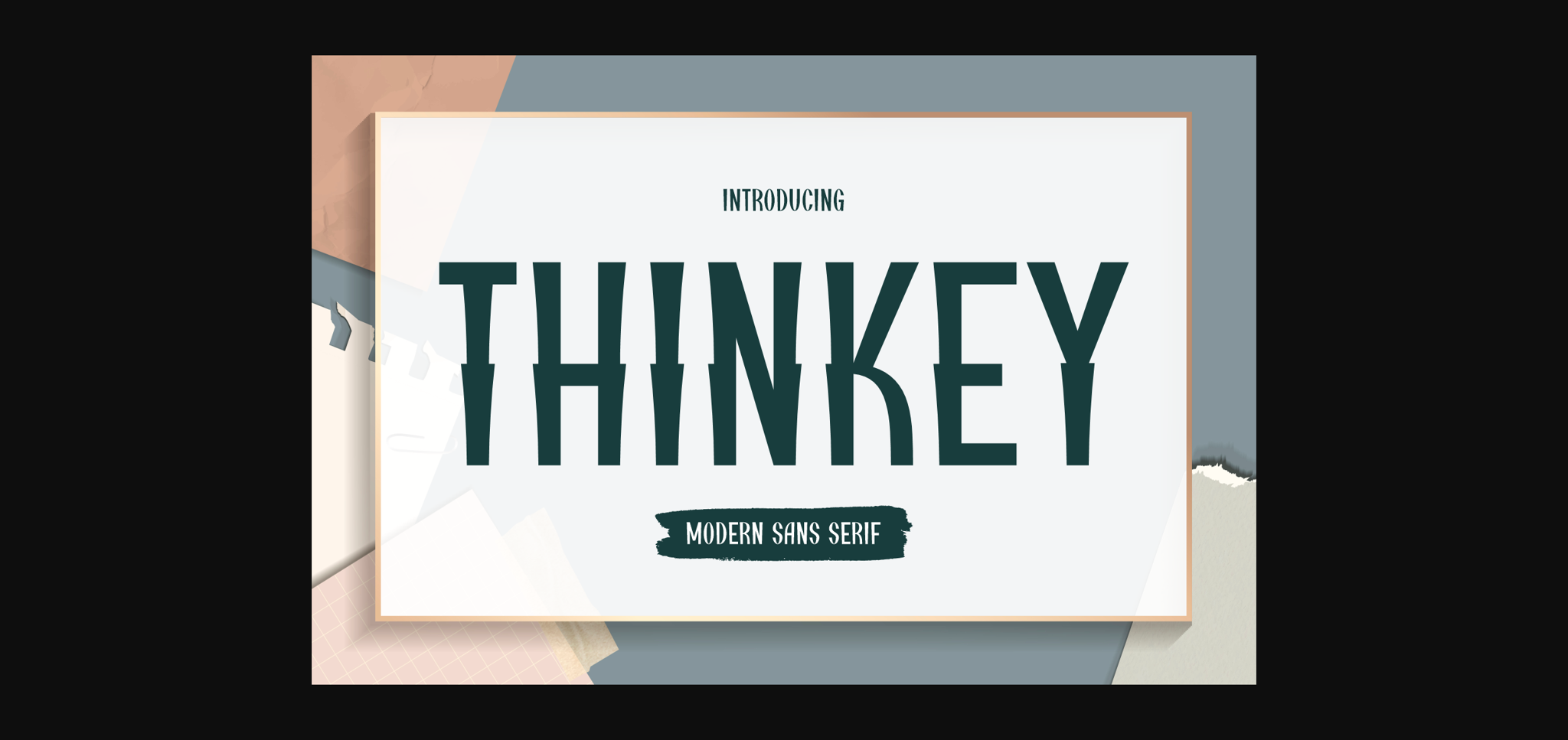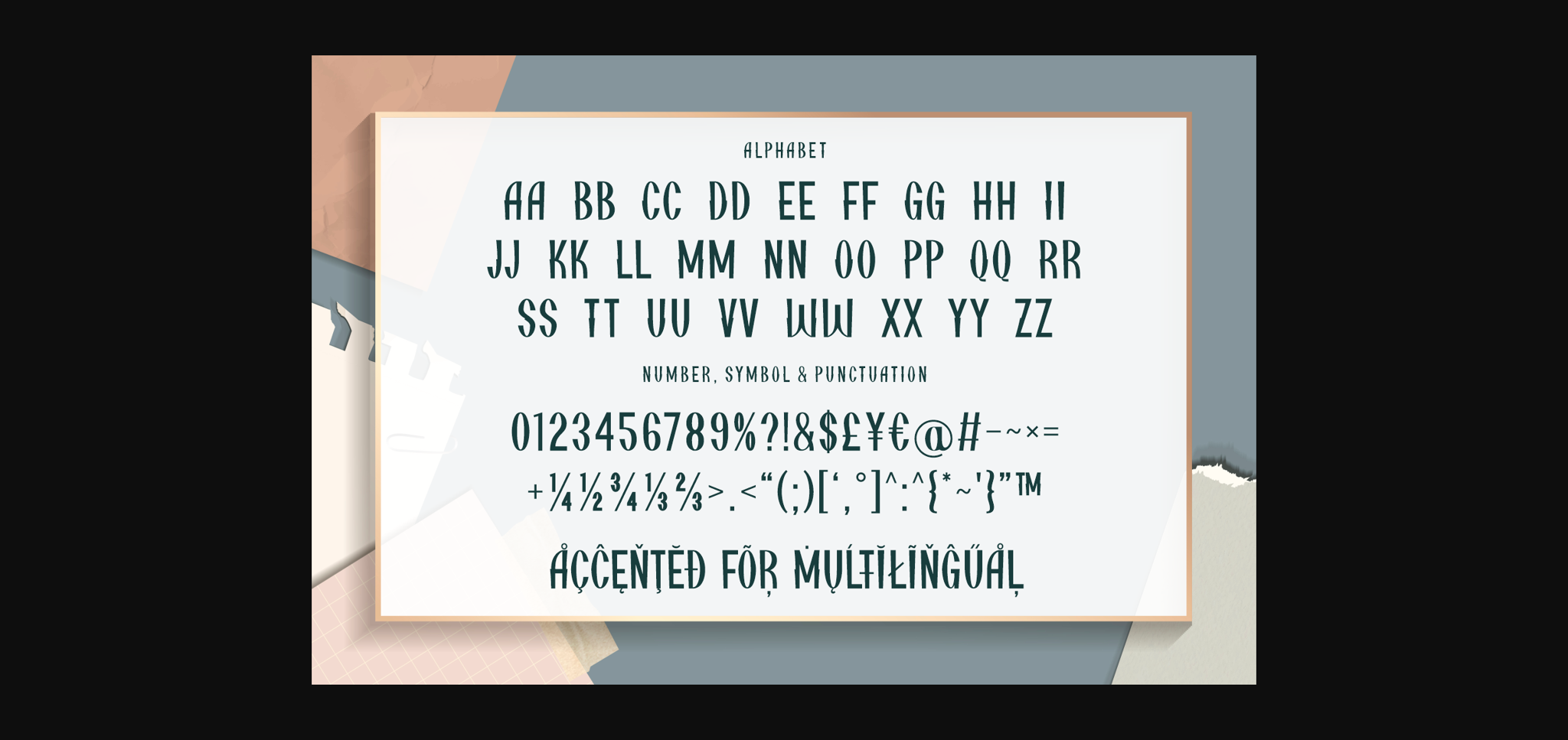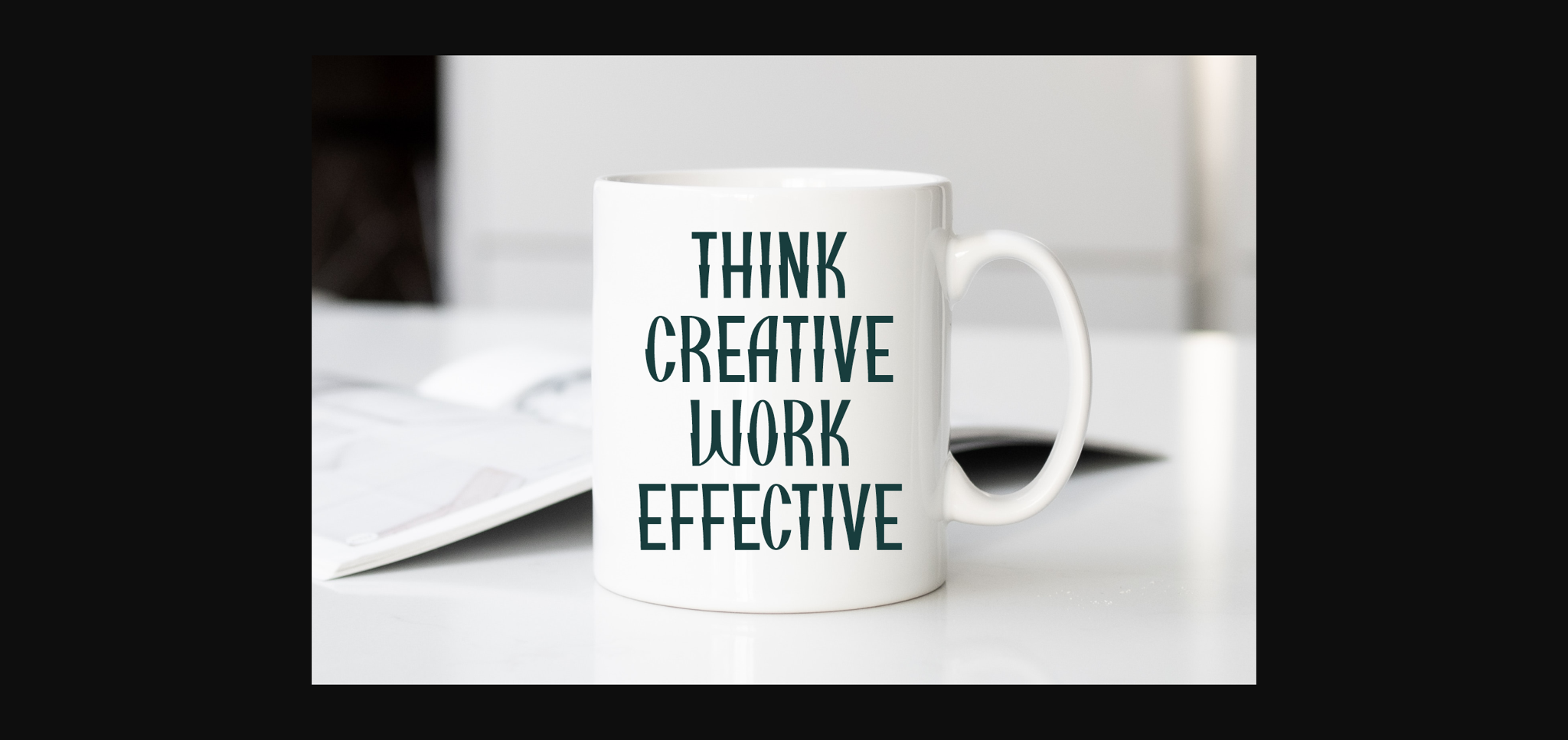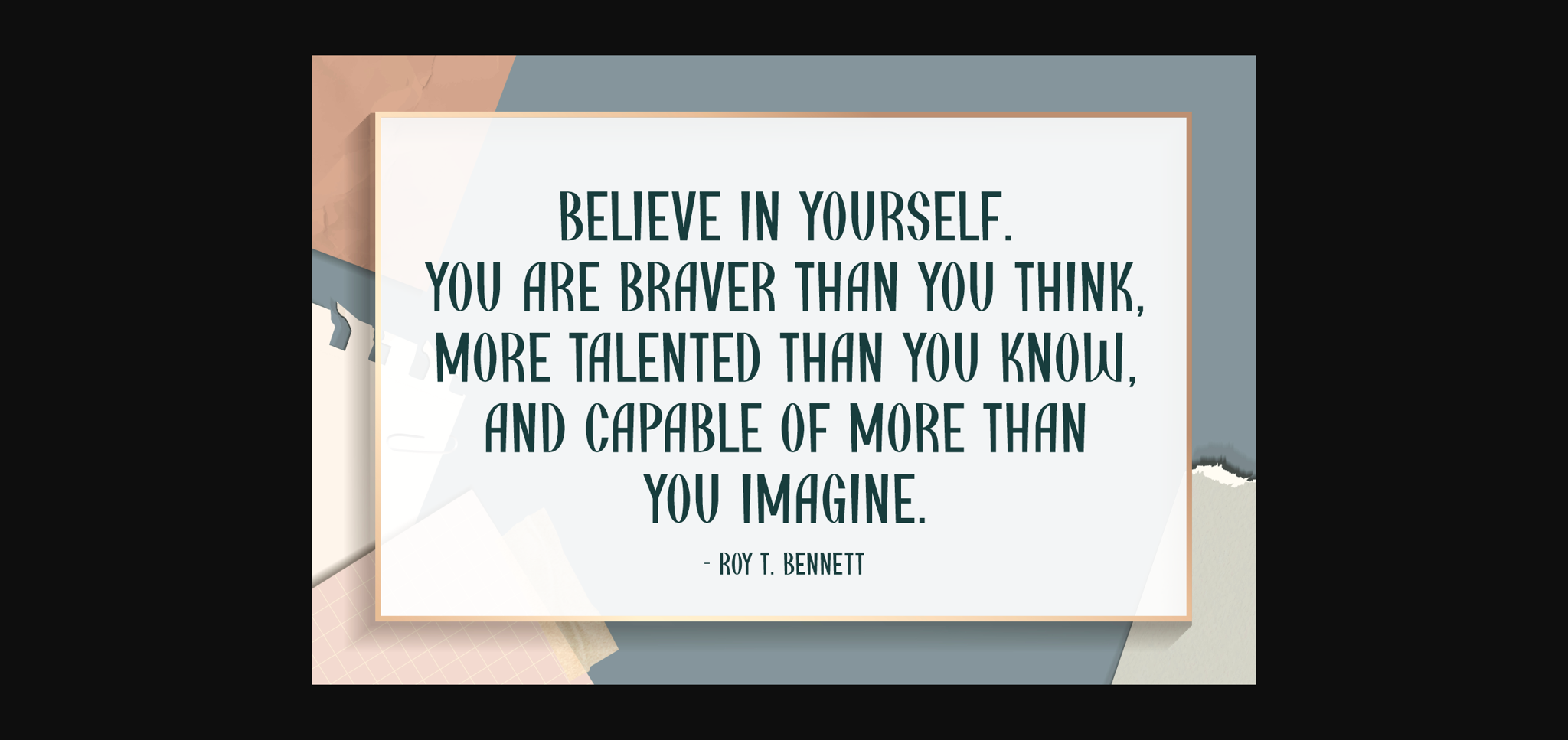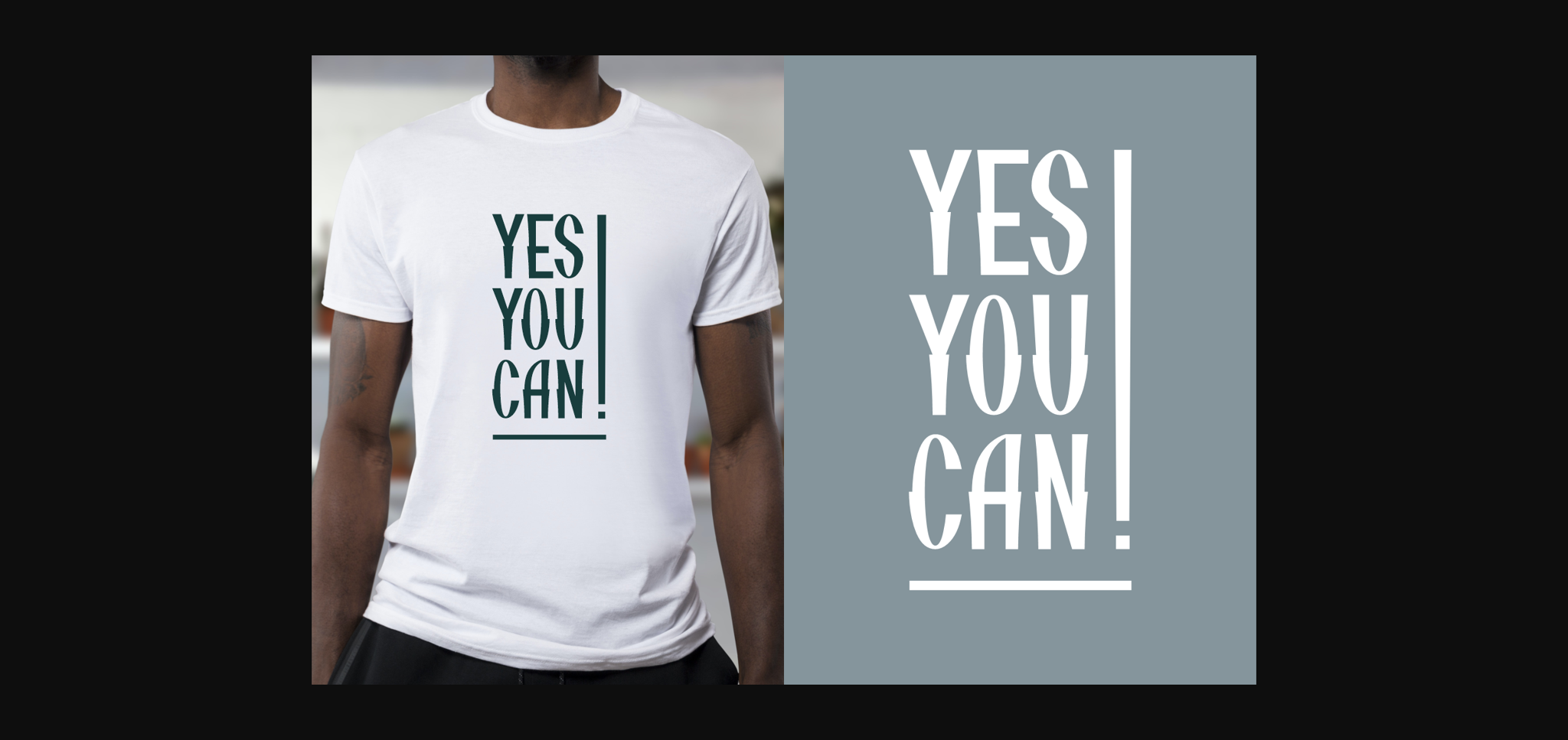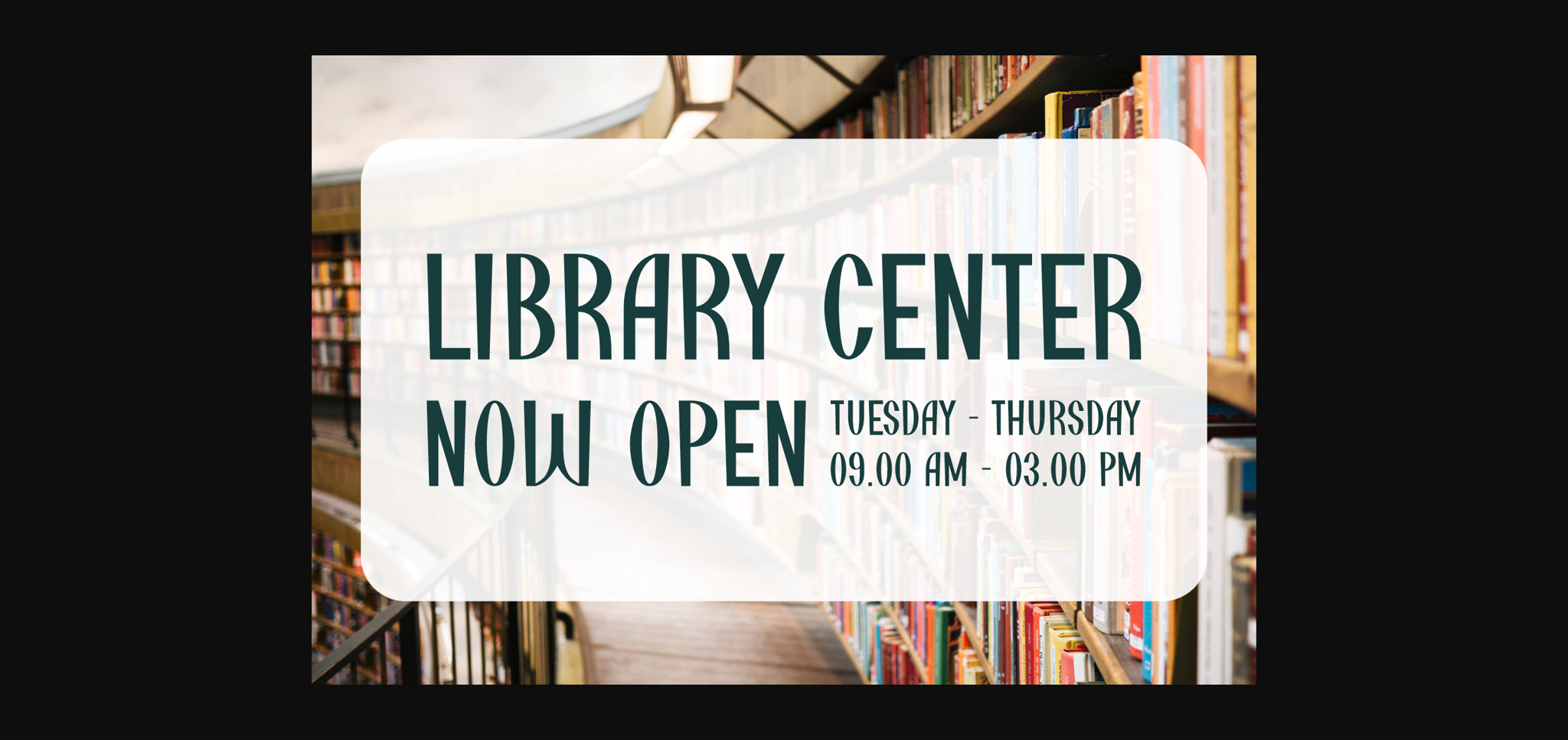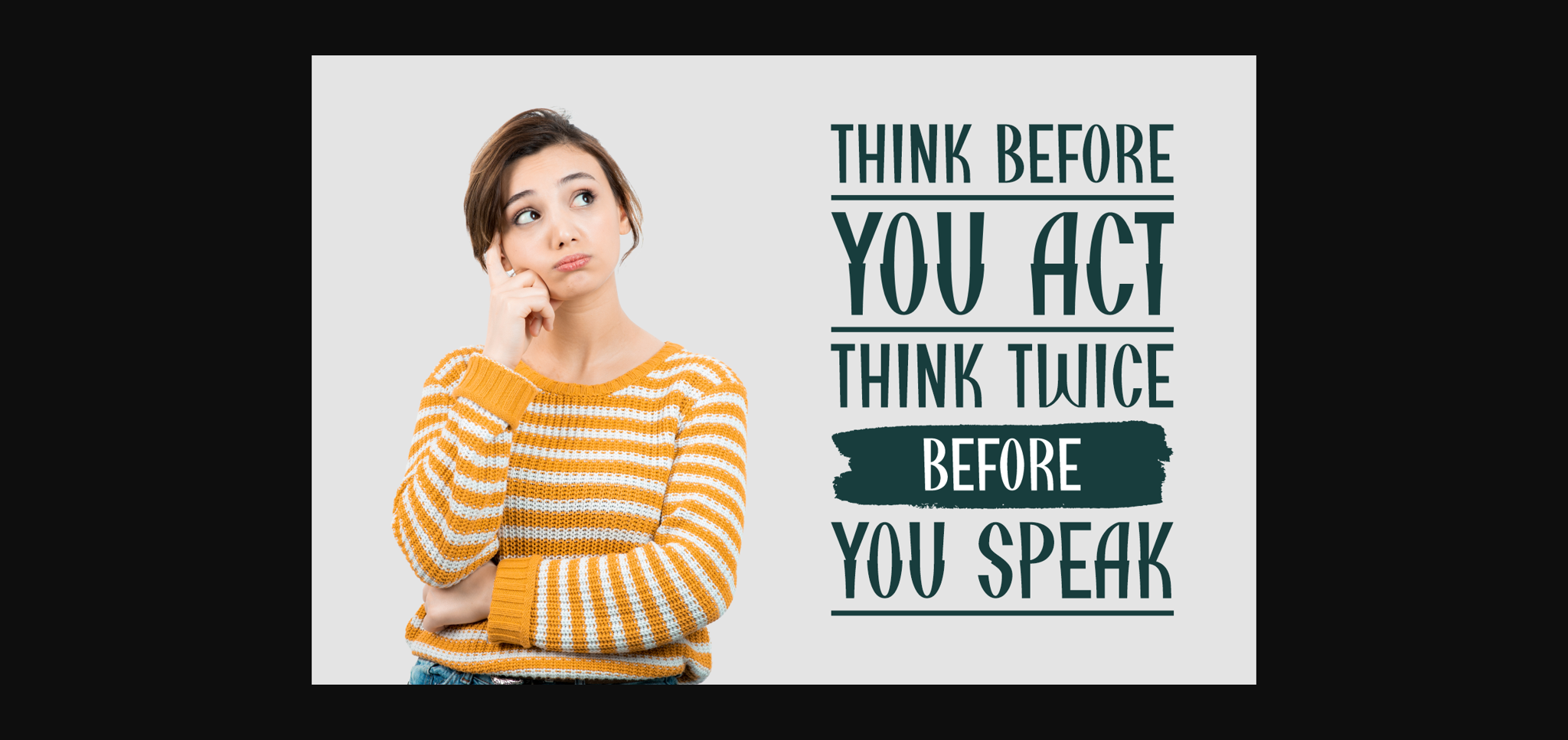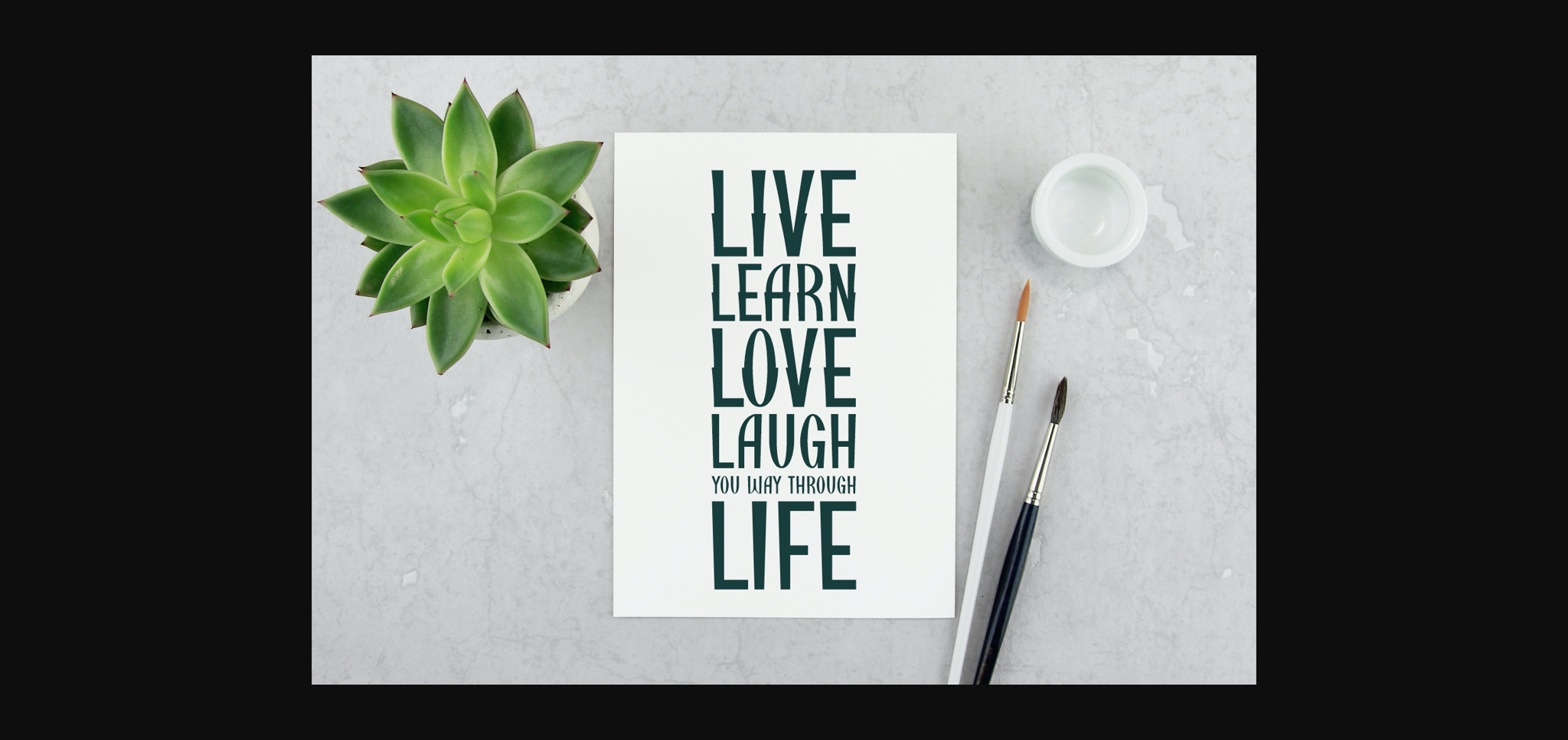
Thinkey Font
About Thinkey Font
Thinkey is a sleek and modern sans-serif typeface that exudes sophistication and simplicity. With clean lines and balanced proportions, it offers a minimalist yet stylish aesthetic ideal for various design applications. Thinkey’s versatility makes it perfect for both digital and print projects seeking a contemporary look.